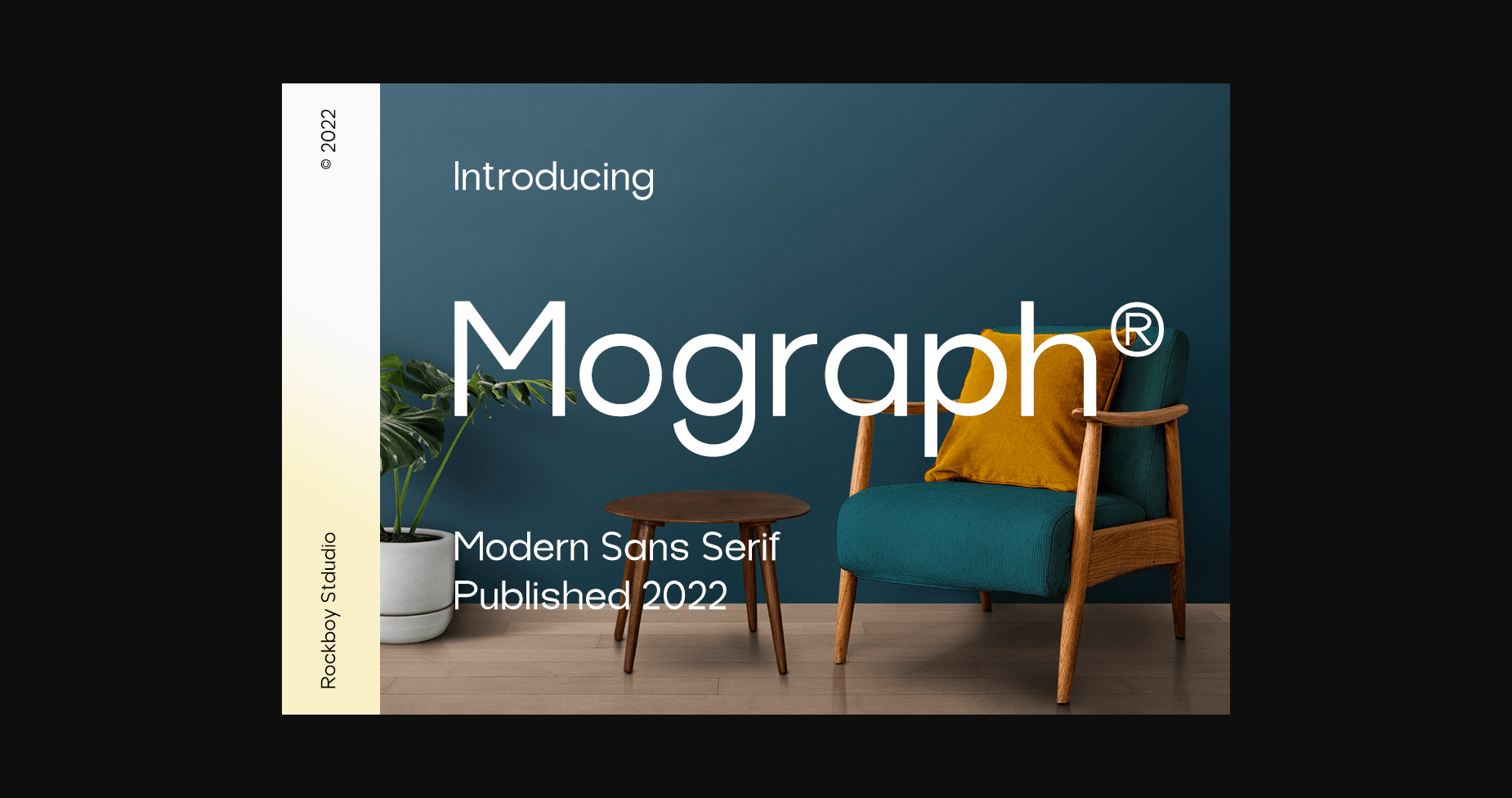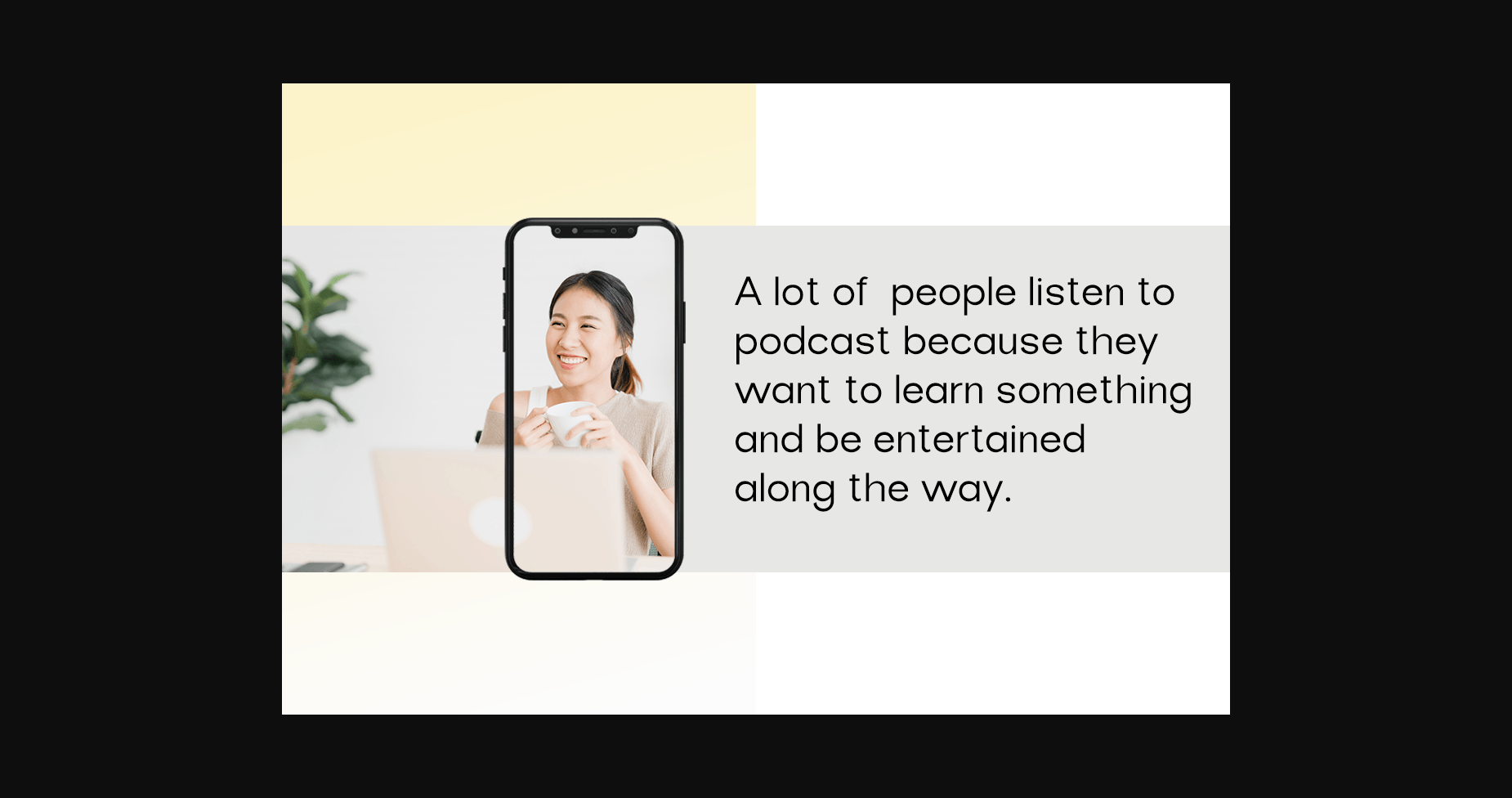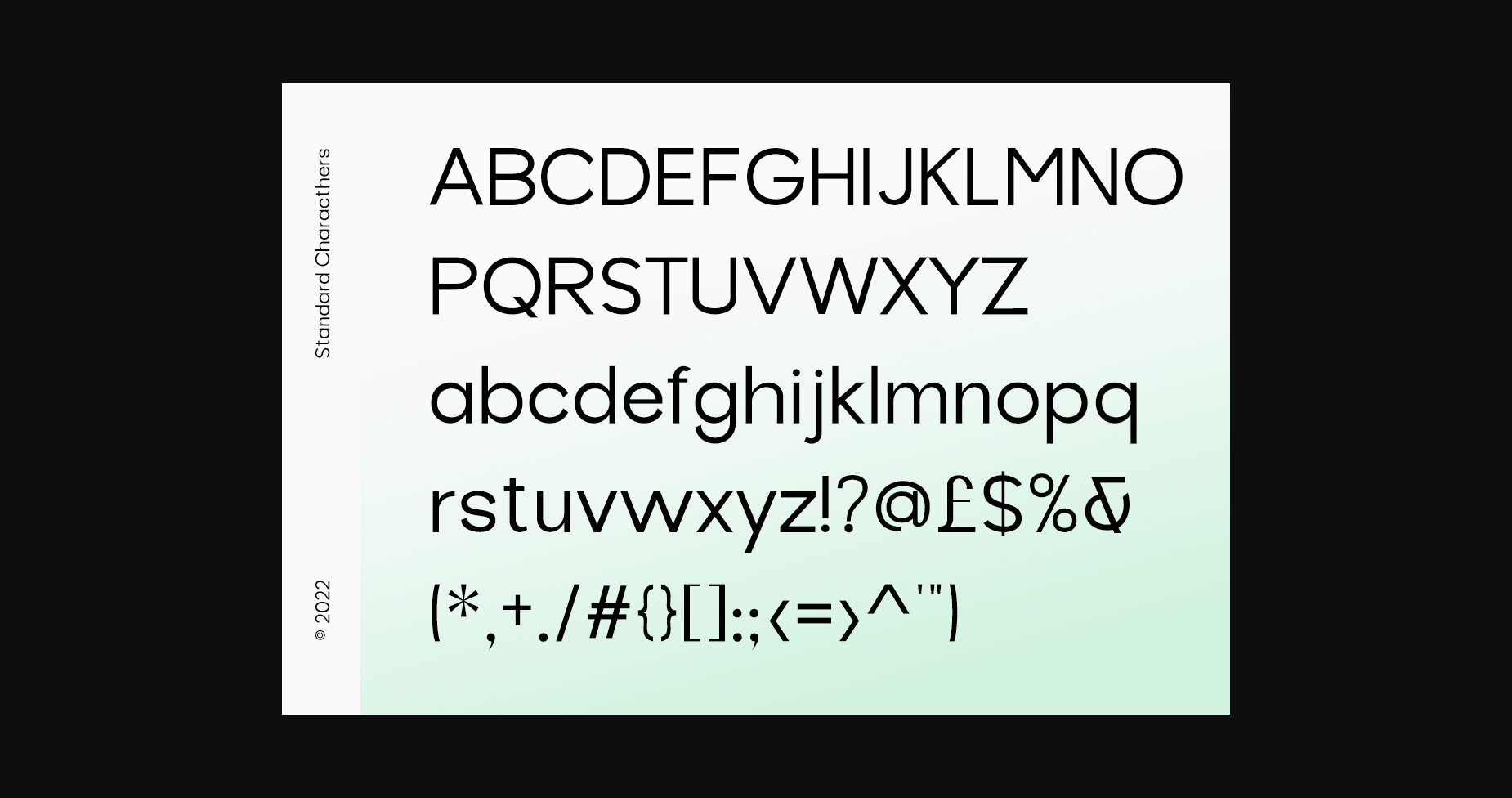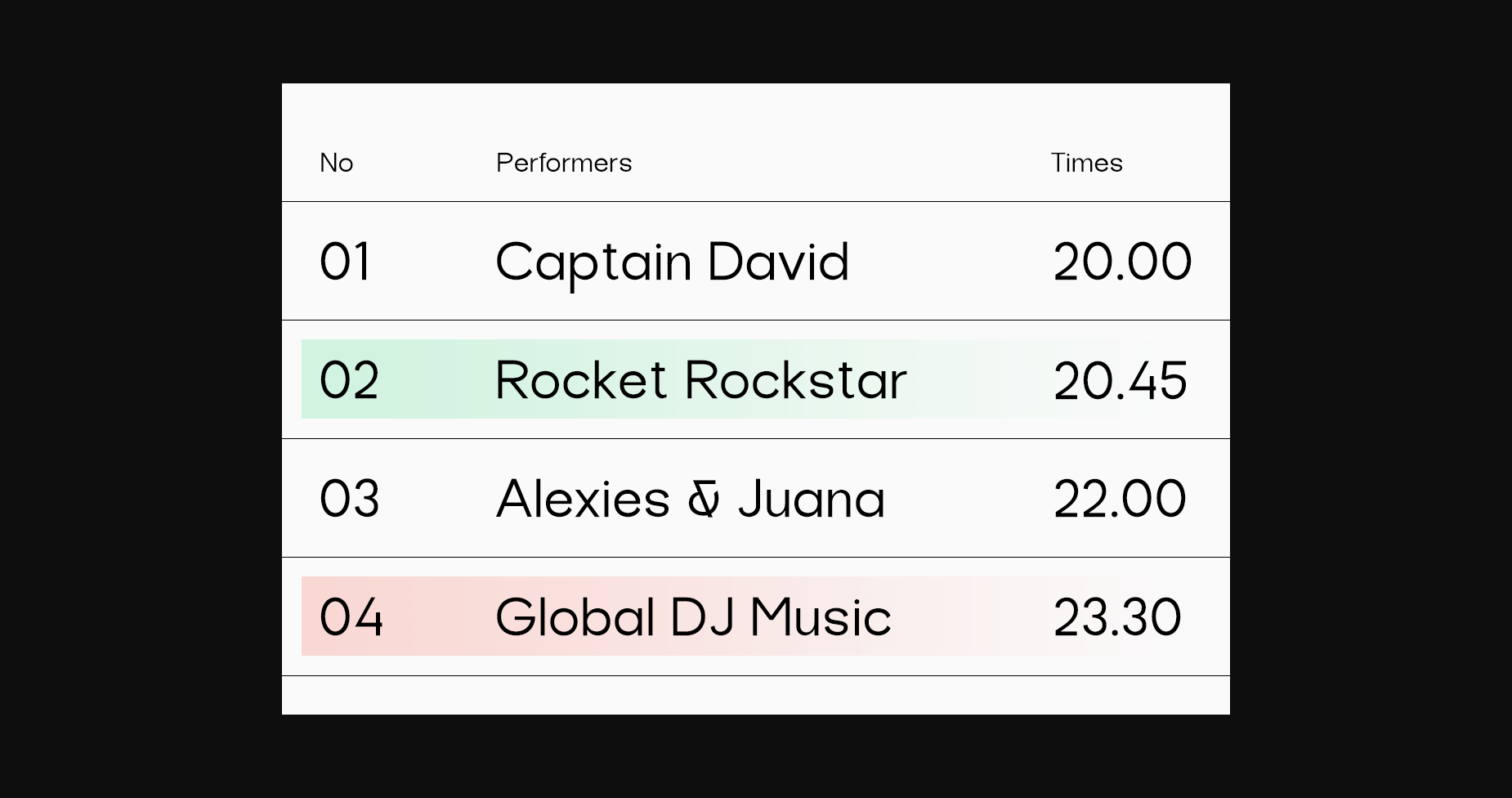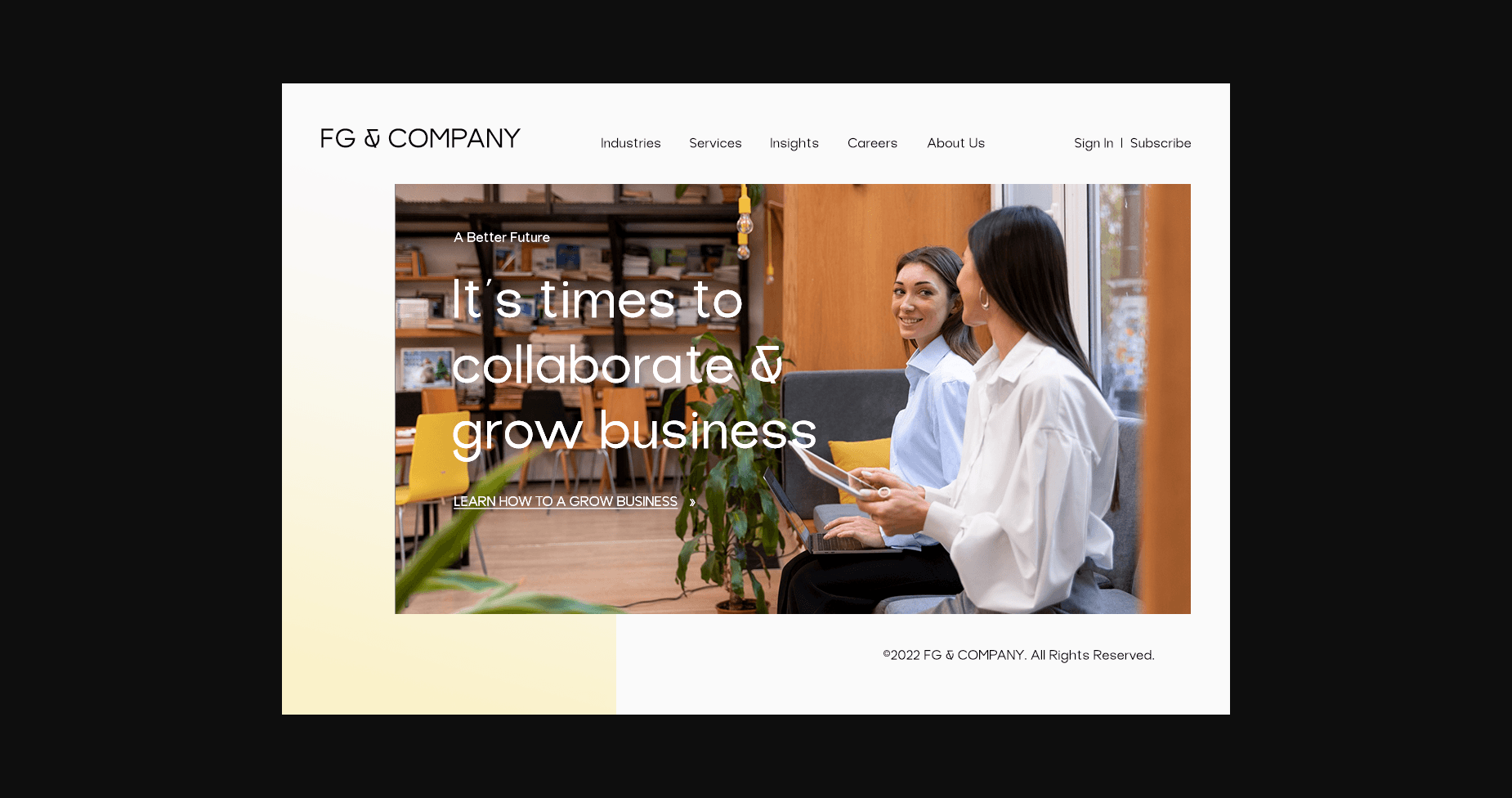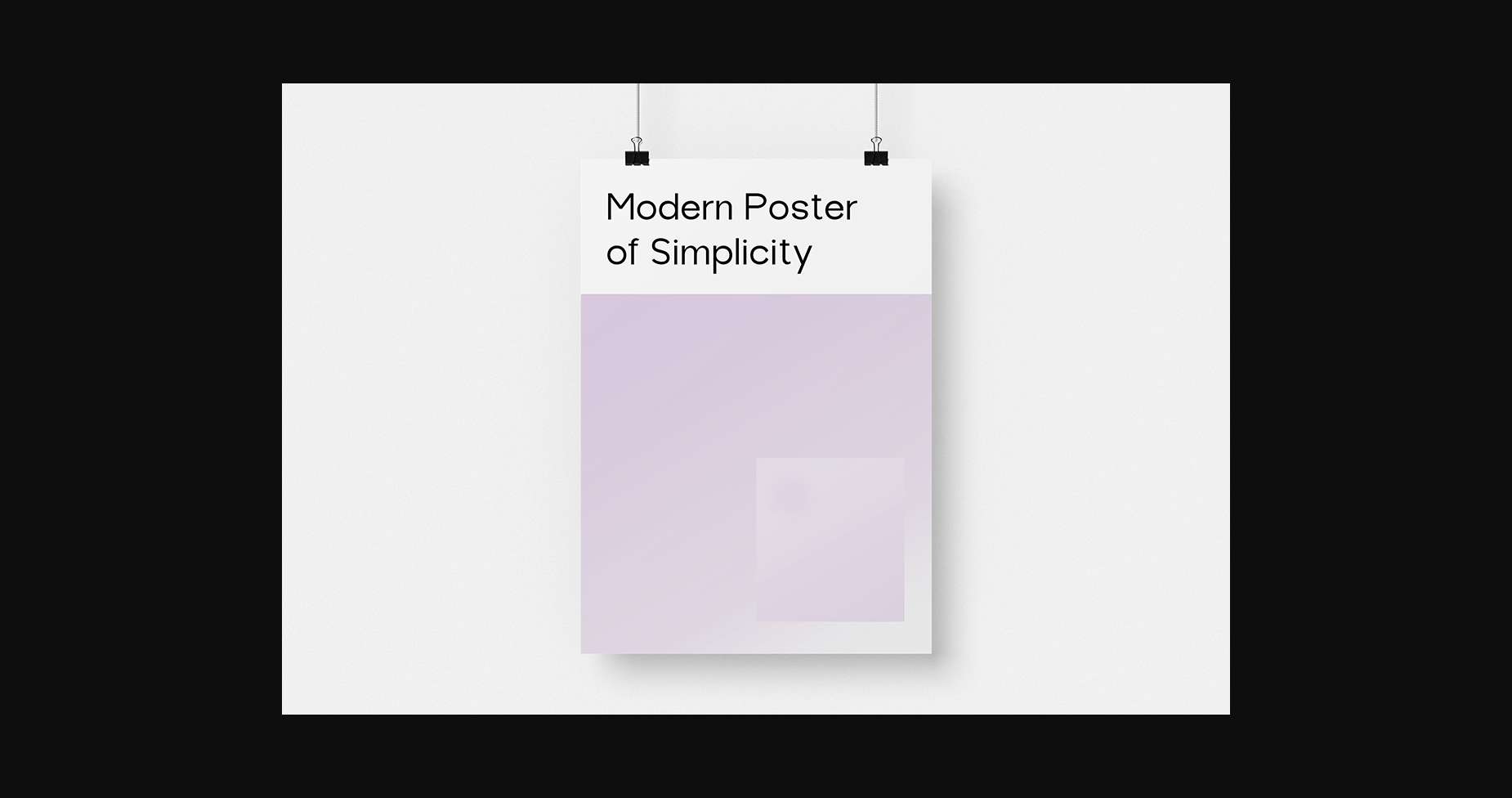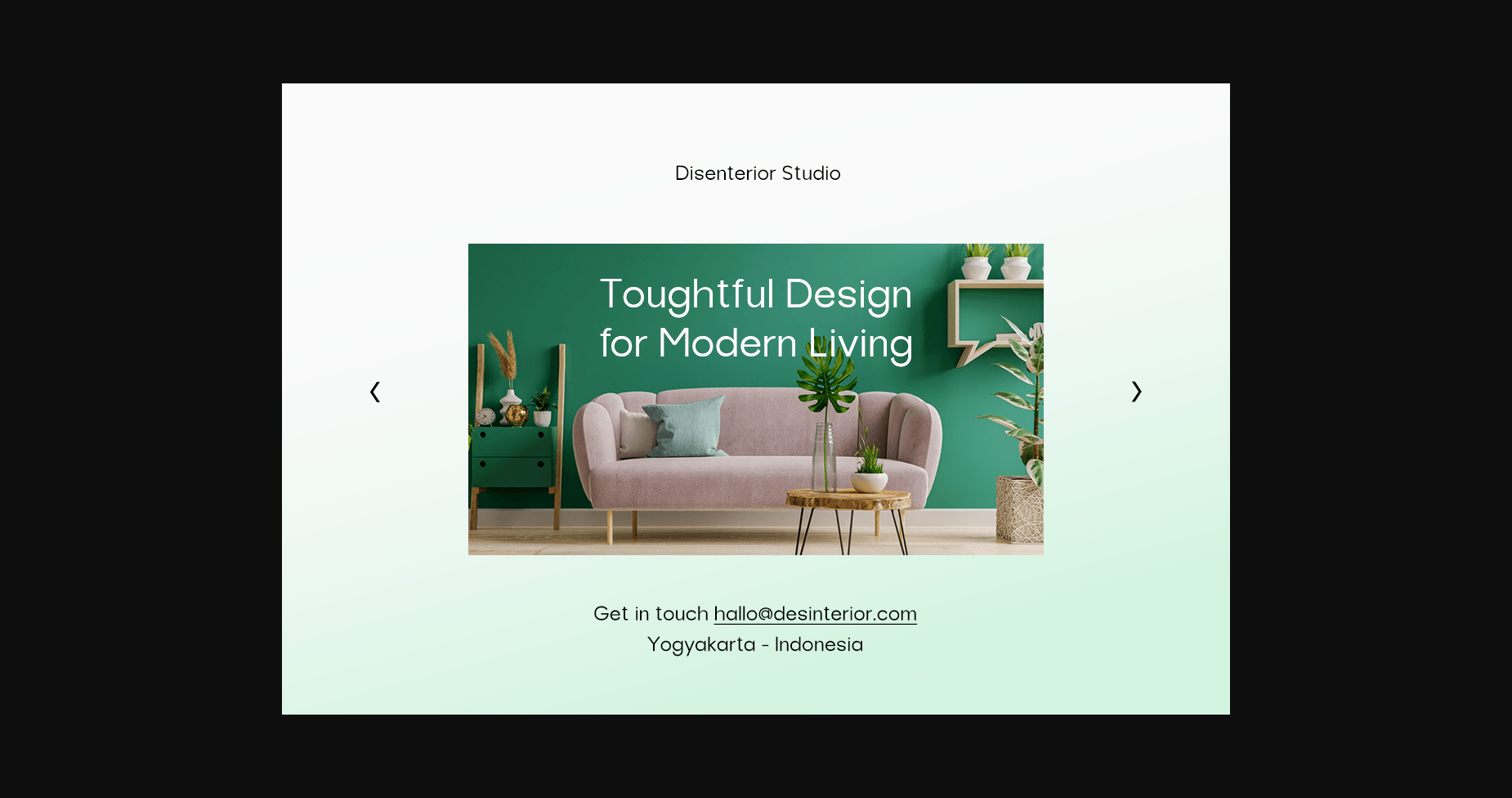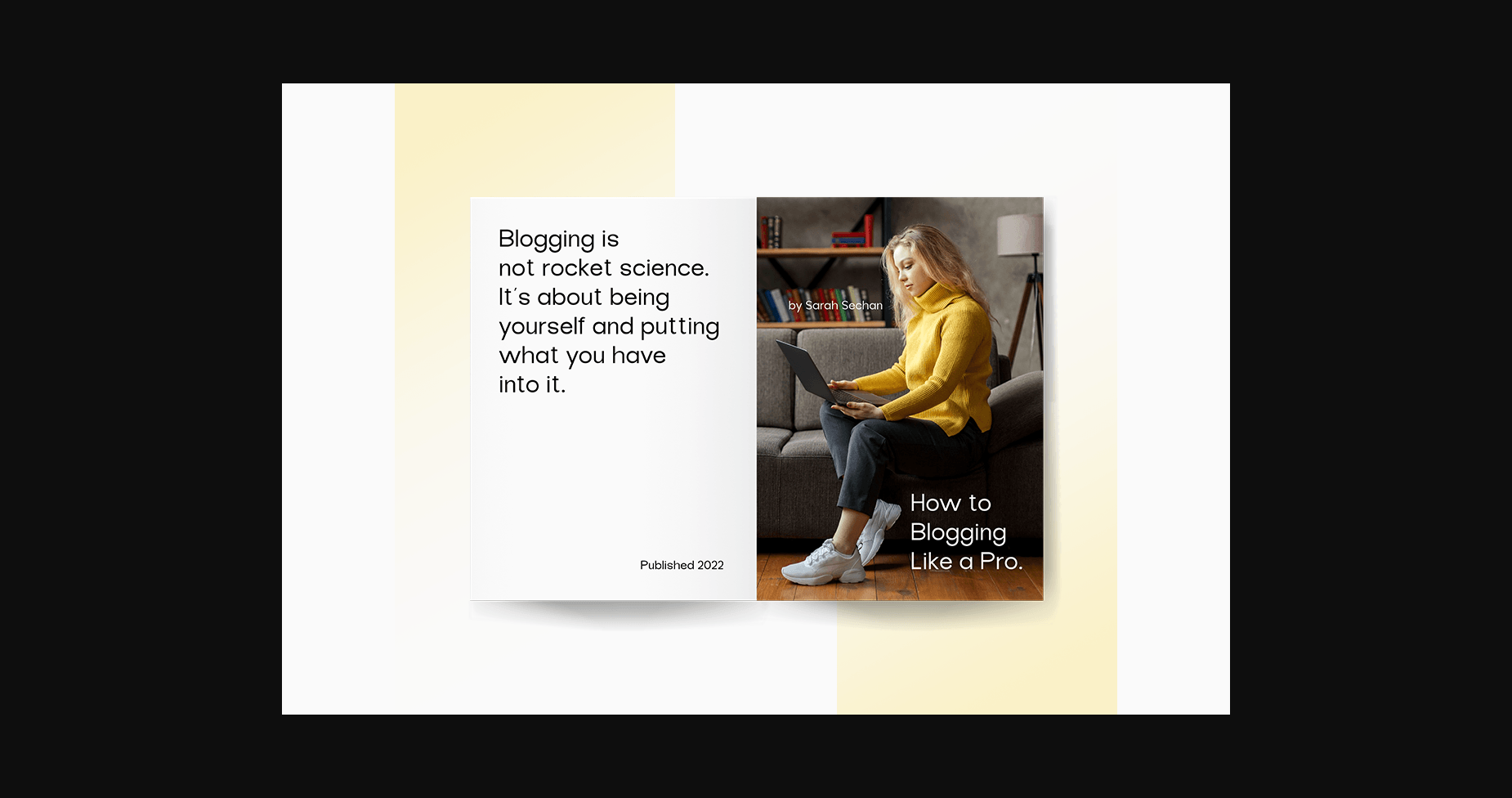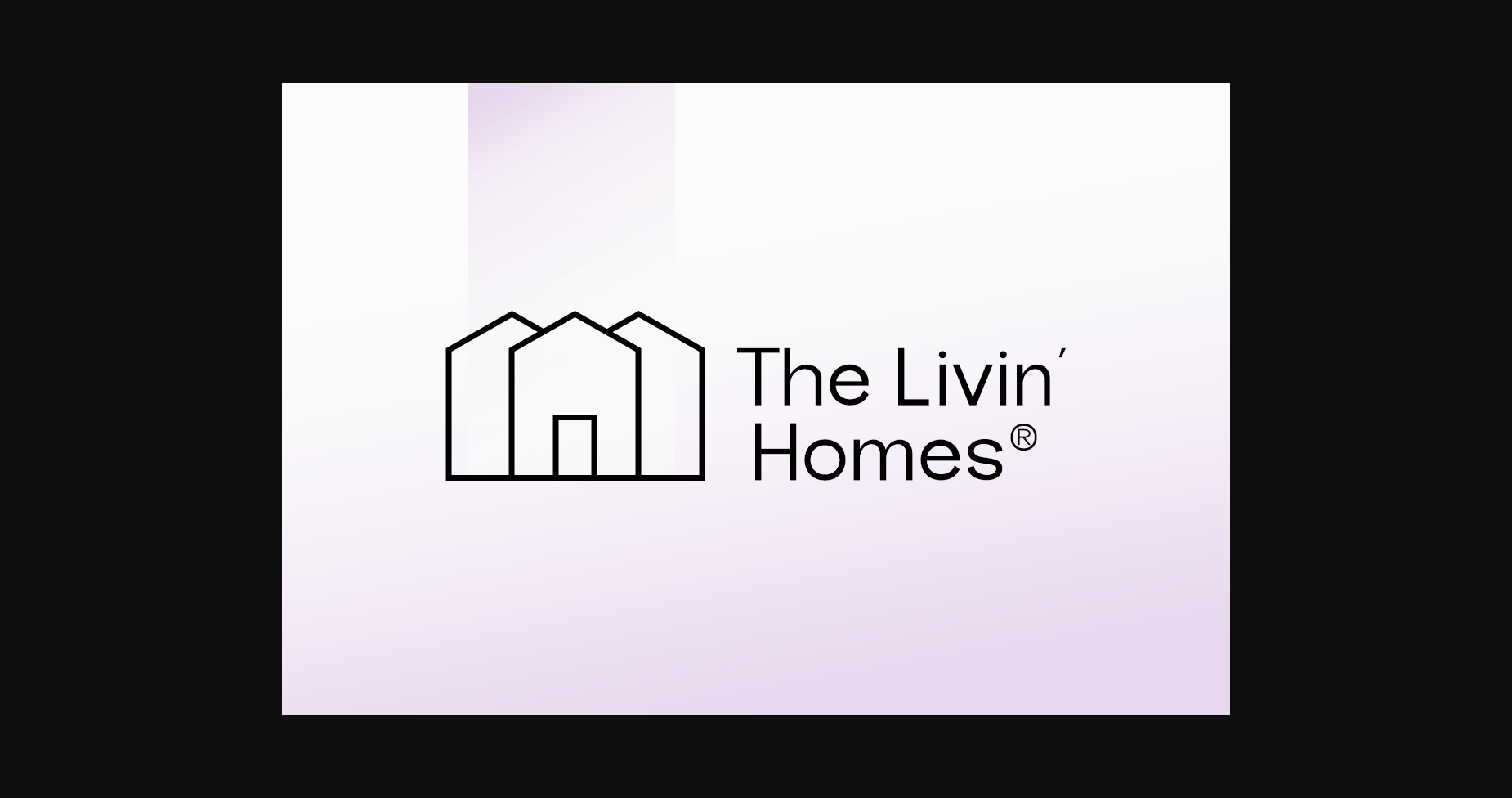
HomeSans Serif FontsMograph Font Sans Serif Fonts Mograph Font FacebookTwitterPinterestWhatsApp 1 of 11 ... Mograph Font Poster 2... Mograph Font Poster 3... Mograph Font Poster 4... Mograph Font Poster 5... Mograph Font Poster 6... Mograph Font Poster 7... Mograph Font Poster 8... Mograph Font Poster 9... Mograph Font Poster 10... Mograph Font Poster 11... About Mograph Font Mograph is a minimal and modern sans serif font. It can easily be matched to an incredibly large set of projects, so add it to your creative ideas, and notice how it makes them stand out! DOWNLOAD NOW People also explored Secret Love Font Hello Autumn Font Victory Landera Font Christmas Musical Font Midnight Diner Font Himalaya Font Sign Rathi Font Delicia Fairly Font Cantabile 161 0 TagsMographMograph Font Previous articleTick Tack FontNext articleCawes Font LEAVE A REPLY Cancel reply Comment: Please enter your comment! Name:* Please enter your name here Email:* You have entered an incorrect email address! Please enter your email address here Website: Save my name, email, and website in this browser for the next time I comment. Personal Use Free Glowing Personal Use Free Read more about this font Geuli Personal Use Free Read more about this font Bally Girl Personal Use Free Read more about this font Pouline Personal Use Free Read more about this font BLOG Free Fonts Risk: Why Free Fonts Can Be Dangerous for Designers Free Fonts Risk: Why Free Fonts Can Be Dangerous for Designers Using free fonts is a common practice in web and graphic design. However, the... Elegant Wedding Invitation Fonts – Handwritten & Script Fonts Exploring Font Trends To increase your work productivity, choose the most readable fonts.